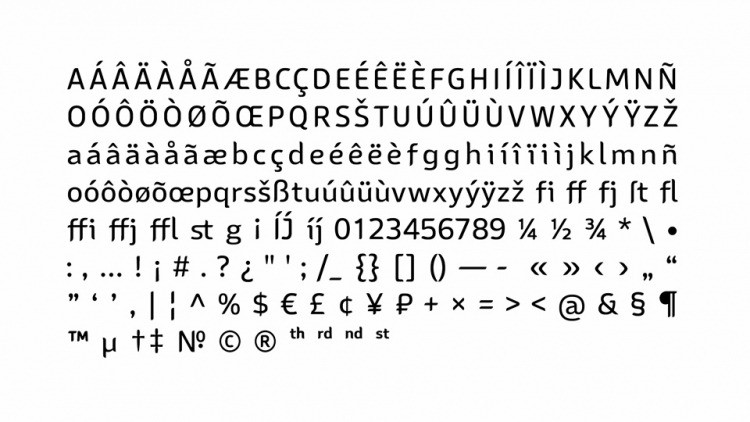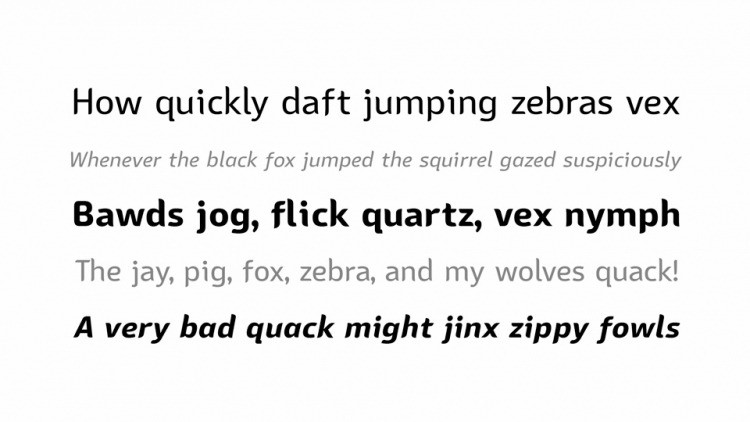
Sans Mateo Font
Say hello to Sans Mateo Sans Serif Font is a sans serif font originally started out as a stripped down version of Bainsley but simplified and completely redrawn. It also has little different look from other fonts with its few curves to the ends of the stems and limbs.
The font has more than 16 thousand kerning pairs and supports fractions, superscript and subscript. As you might have guessed from the fact that this was built as a testbed font for new ideas with open type it has a lot of open type features. Stylistic set 01 turns the single storey ‘g’ into a two storey ‘g’, Stylistic Set 02 is only available in Dutch and cancels the localisation of IJ ligatures, if anyone wants to do this.
The default is tabular numbers but this can be swapped for proportional numbers using the ‘pnum’ function.